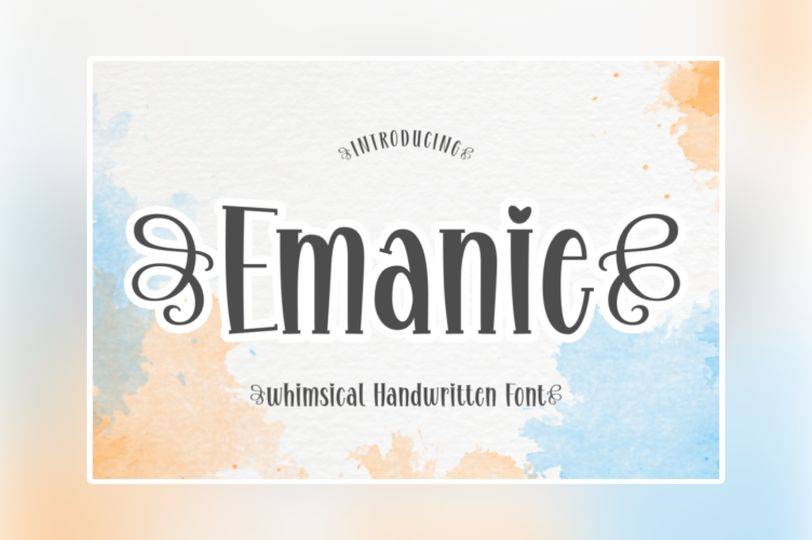
Emanie is a tall and narrow serif font with a playful yet elegant character. Its thin, high-contrast strokes and unique details, such as heart-shaped dots on the lowercase i and j, give it a whimsical charm that still feels refined. This font works beautifully for creative branding, invitations, and headlines where a stylish and distinctive voice is desired.
Emanie Font
About Emanie Font
| Font family | Emanie Font |
| Designer | Creative Fabrica Fonts |